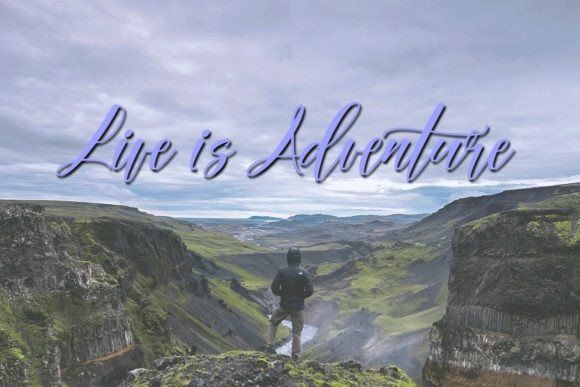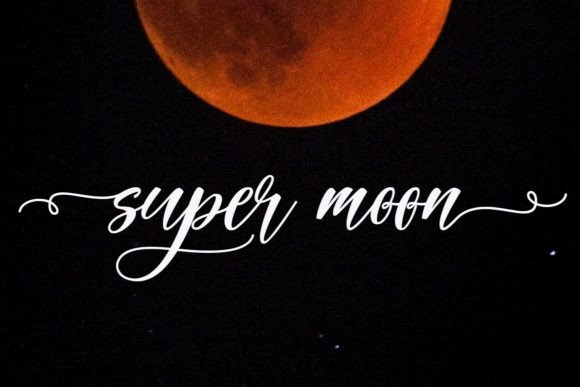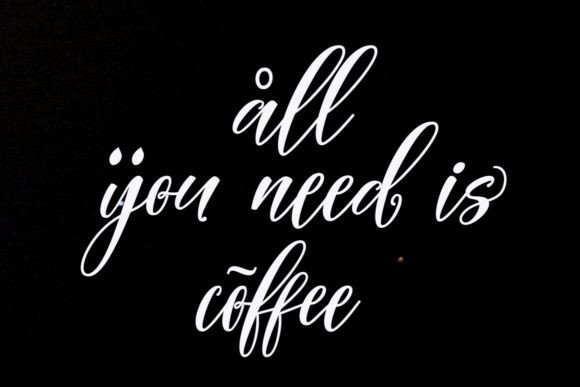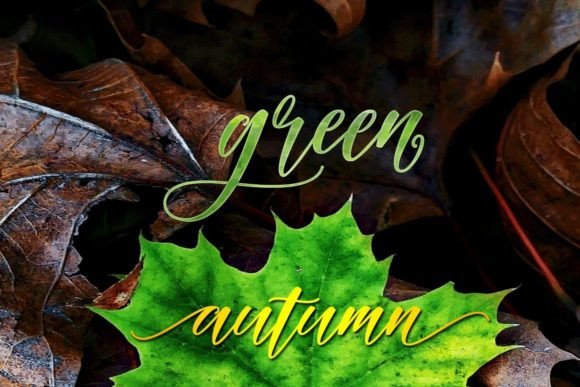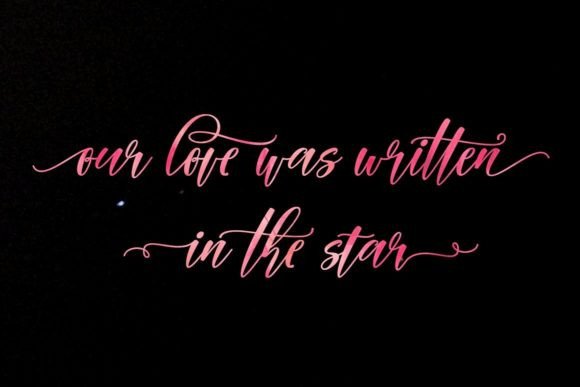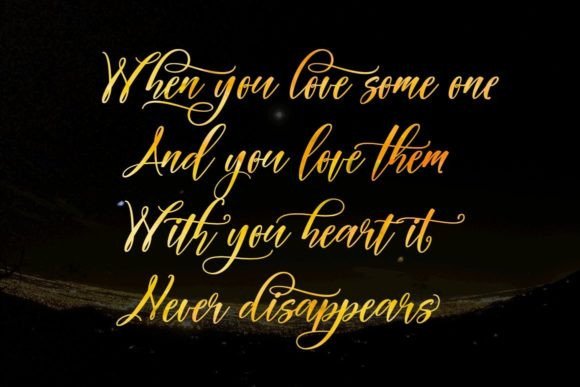
Autumn Font
About Autumn Font
Autumn is a charming and cursive handwritten font that brings a touch of sweetness and romance to a variety of design projects. Crafted with a gentle and flowing style, this font is versatile and well-suited for a range of creative applications.
The graceful curves and elegant strokes of Autumn make it a perfect choice for projects that require a romantic and inviting feel. Whether you’re working on wedding invitations, love notes, greeting cards, or any design where a soft and gentle touch is desired, Autumn is ready to elevate your creations.
One of the standout features of Autumn is its cursive nature, which adds an element of fluidity and continuity to the text. This makes it particularly appealing for conveying a sense of warmth and personal connection in your designs.
The PUA encoding of this font enhances its flexibility by providing easy access to a variety of glyphs and swashes. This feature allows designers to incorporate decorative elements and unique variations, adding an extra layer of customization to their projects.
In summary, Autumn is a delightful font that combines sweetness with cursive elegance. Its ability to convey a romantic and joyful ambiance makes it a valuable asset for various design contexts. Whether used in print or digital media, Autumn adds a touch of charm and sophistication to your projects, making them stand out with a gentle and romantic allure.